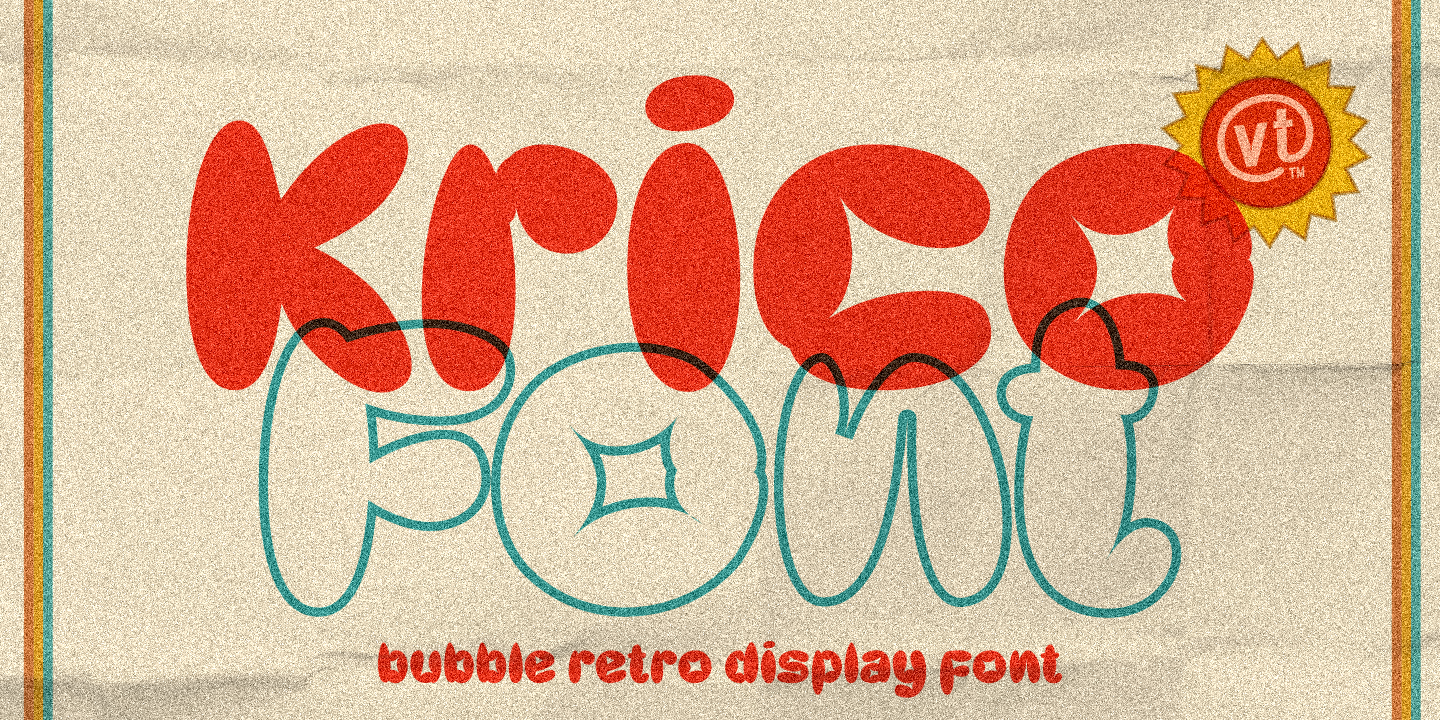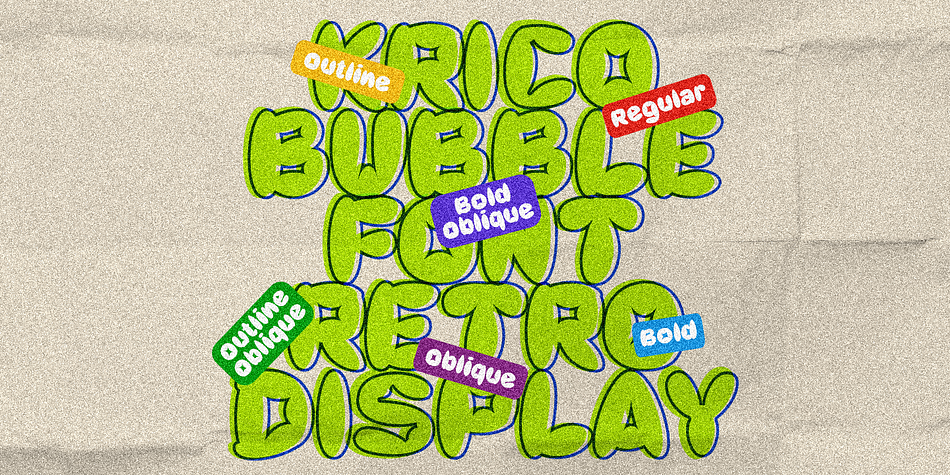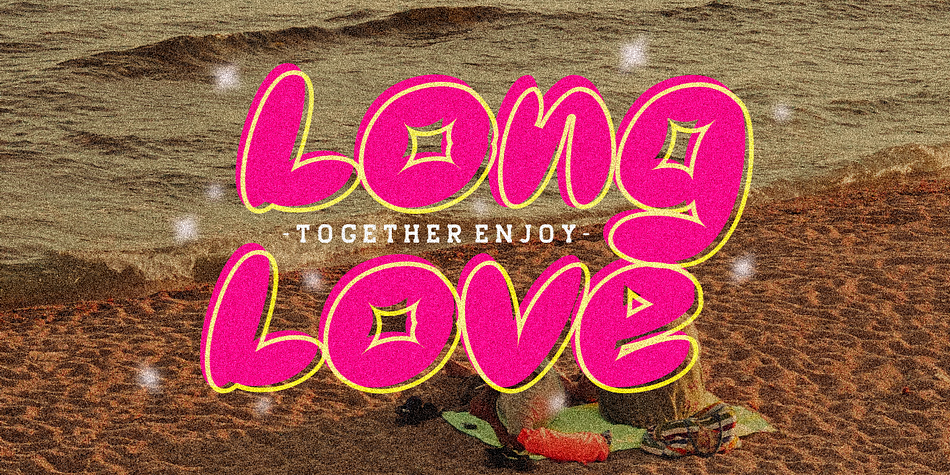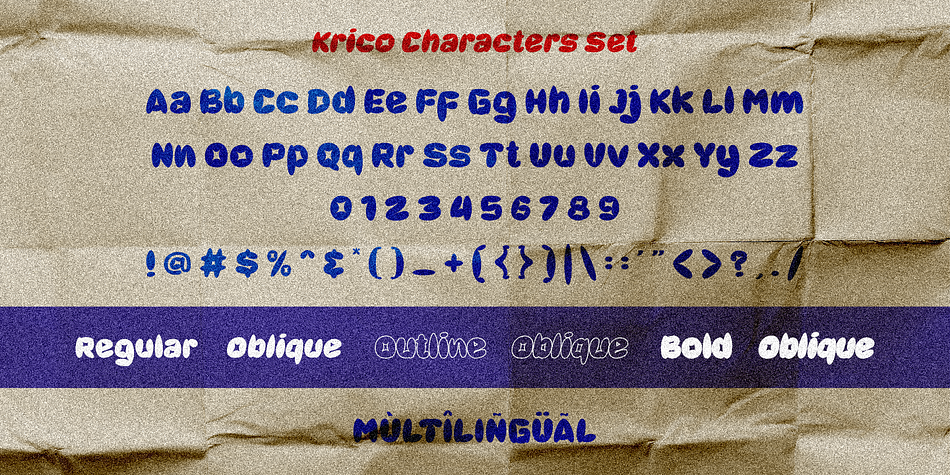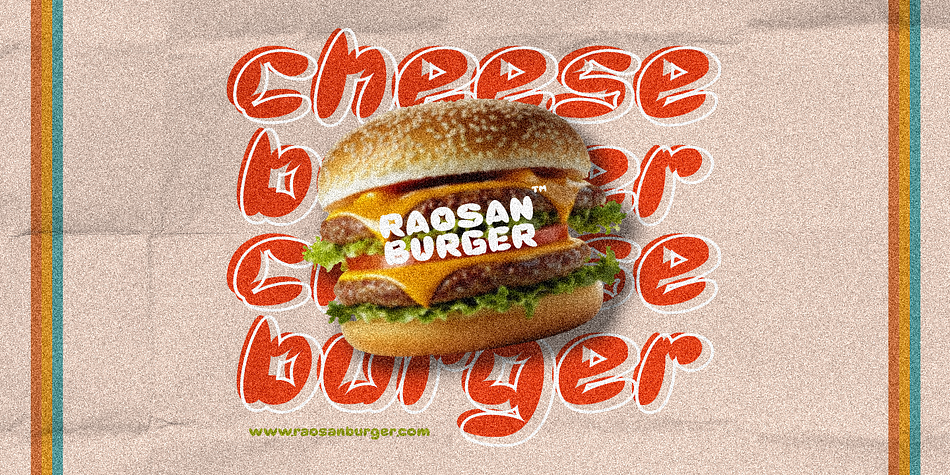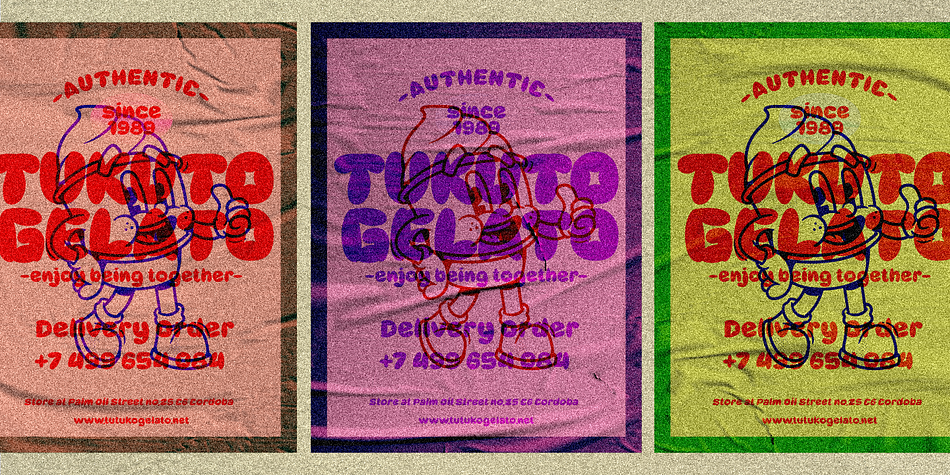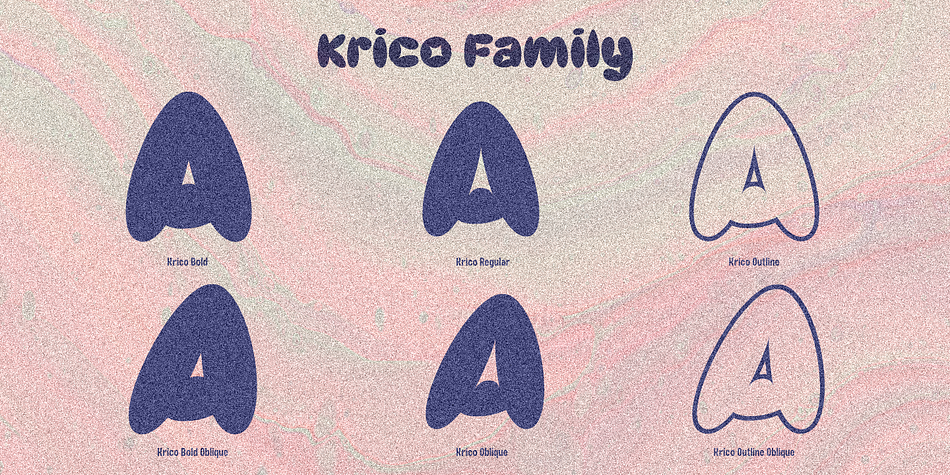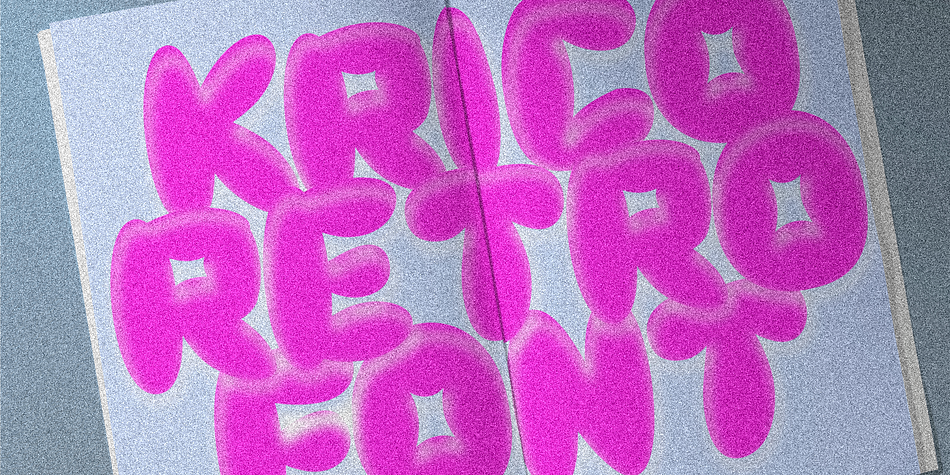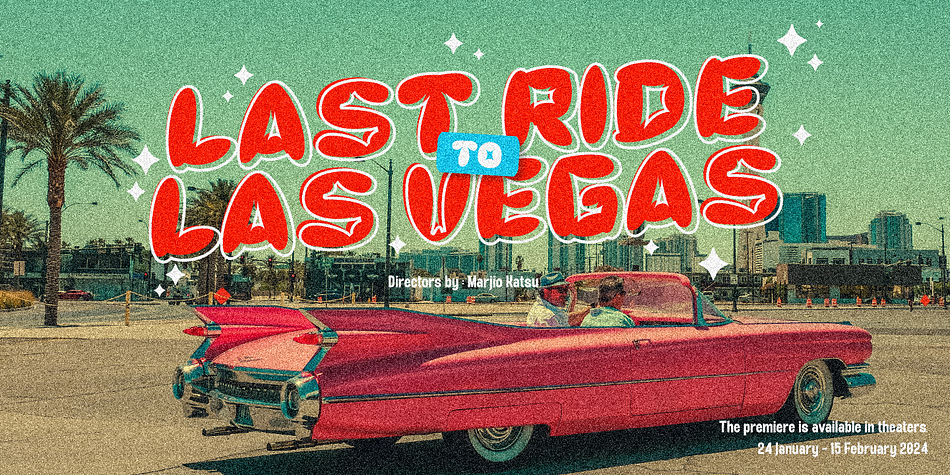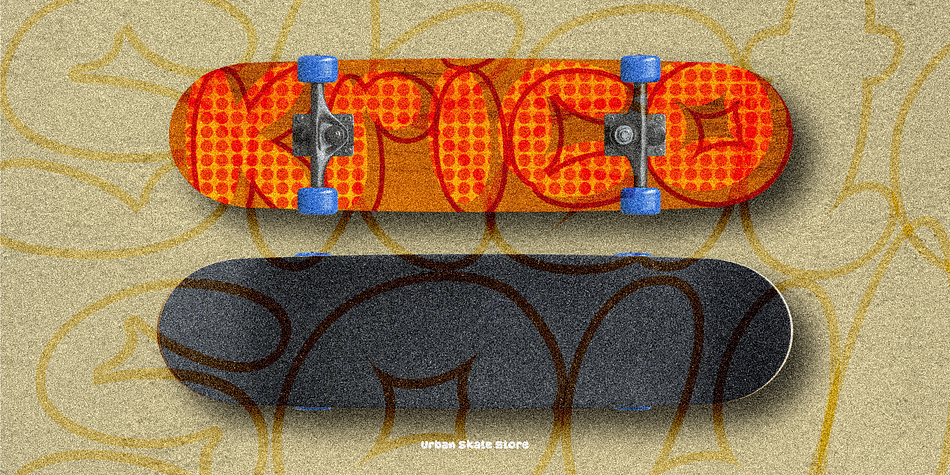
Introducing our captivating KRICO-Retro Bubble Font – a playful and trendy typeface that adds a delightful touch to your design projects. Immerse your visuals in a world of whimsy and charm with this bubbly font style that effortlessly blends fun and professionalism.
Crafted with precision and creativity in mind, our KRICO-Retro Bubble Font is perfect for a wide range of applications, from eye-catching logos and branding to vibrant social media graphics and attention-grabbing headlines. The soft, rounded contours of each letter evoke a sense of friendliness and approachability, making it ideal for projects targeting diverse audiences.
Key Features:
- Playful Aesthetics: The bubbly design injects a sense of joy into your text, making it perfect for projects that aim to captivate and engage.
- Versatile Usage: Suitable for a variety of design applications, including digital and print media, merchandise, invitations, and more.
- Easy to Read: Despite its whimsical appearance, the font maintains excellent readability, ensuring your message is conveyed effectively.